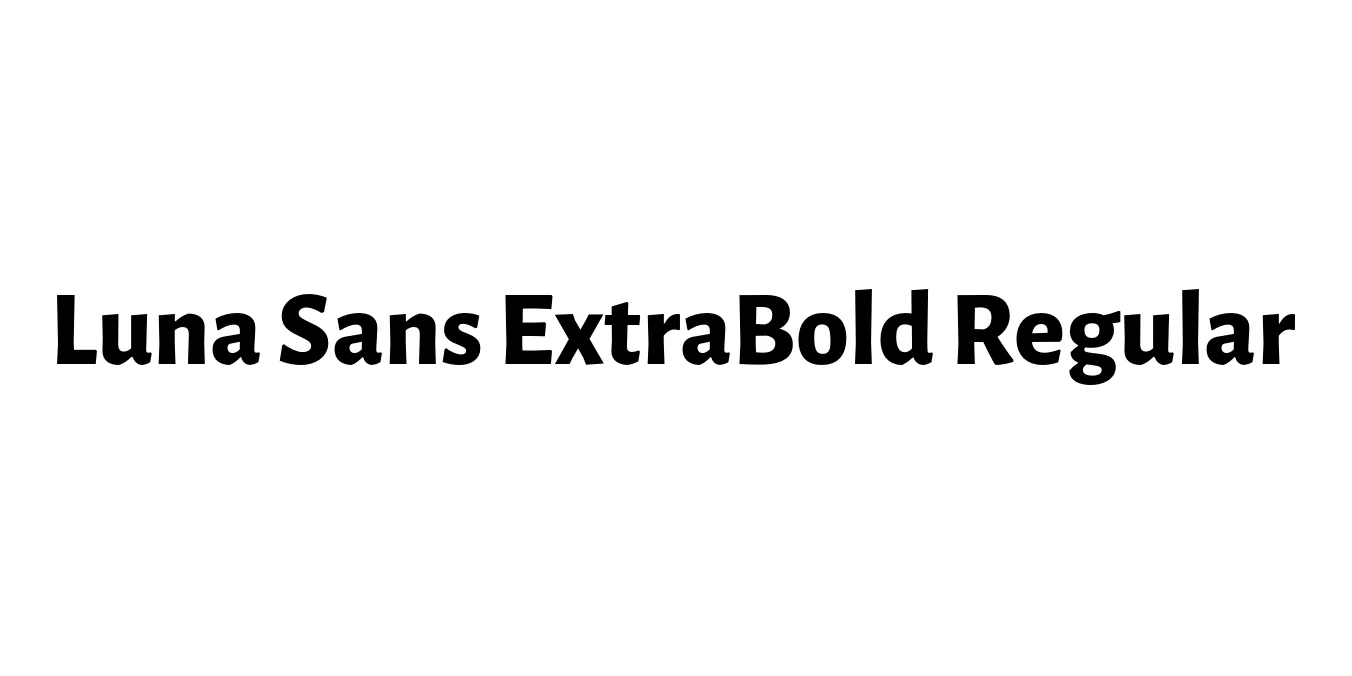
Luna Sans ExtraBold Regular
Designed by Dmitry Rastvortsev
Luna Sans ExtraBold Regular is a powerhouse within the geometric sans-serif genre, meticulously crafted to deliver high-impact visual communication. This font stands out due to its sturdy, balanced proportions and clean, minimalist lines that define contemporary typography. The ExtraBold weight provides a dense, authoritative presence, making it an essential tool for designers who need to capture attention immediately while maintaining a sense of professional sophistication.
The typeface is engineered with open apertures and a generous x-height, which ensures that despite its heavy weight, the font remains exceptionally legible in both print and digital environments. Luna Sans is often chosen for projects that require a bridge between classic grotesque aesthetics and modern geometric precision, offering a versatile range of application from tech-startup branding to high-end editorial layouts.
Luna Sans ExtraBold Regular Best Uses
Ideal for creating strong, memorable logos and corporate visual identities.
Perfect for high-impact titles and attention-grabbing hero sections on websites.
Excellent for posters, billboards, and promotional marketing materials.
Great for bold graphic overlays and professional social media banners.